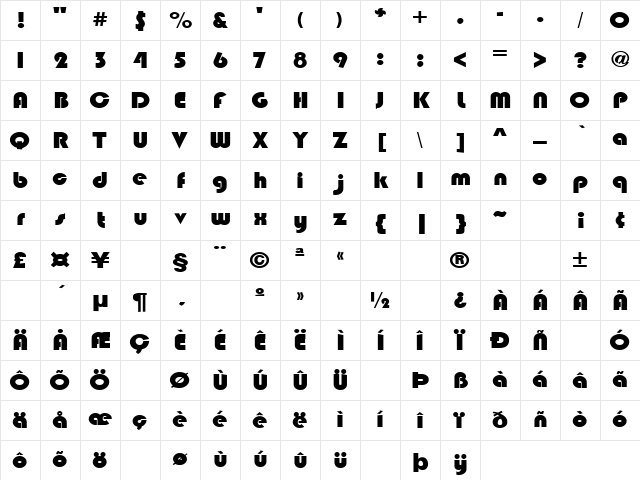
Smoke 5 Regular
Design Context for Smoke 5
Smoke 5 is a composed and adaptable typeface that performs quietly and consistently across a wide range of design contexts.